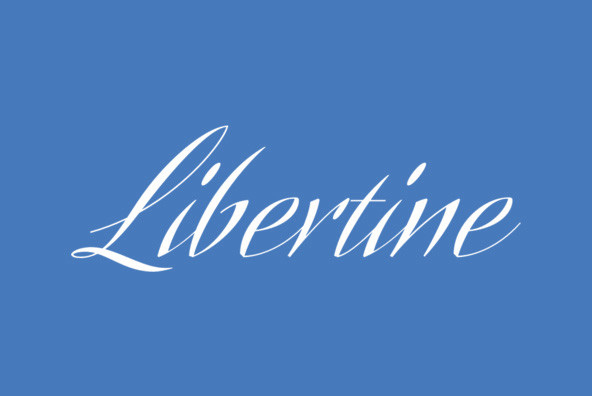
Libertine Font
Libertine Font is perfect for academic publishing houses, scholarly journal layouts, university press materials, intellectual freedom organizations, classical literature publications, and philosophical discourse platforms. This distinguished typeface excels in research institution communications, liberal arts college branding, civil liberties advocacy materials, and any application where intellectual freedom and scholarly excellence create meaningful connections with academic communities.
What makes Libertine Font so exciting is its exceptional ability to embody the principles of intellectual freedom and scholarly independence through elegantly balanced letterforms that honor both classical tradition and progressive thinking. The font features refined proportions, scholarly elegance, and liberated character shapes that reflect the pursuit of knowledge without constraint. Its intellectual presence makes it perfect for institutions that champion free thought and academic excellence.
Libertine Font comes in a scholarly family including Light, Regular, Medium, Bold, and Academic weights. Each style features complete uppercase and lowercase character sets, scholarly symbols, intellectual numerals, and academic punctuation marks. The font family also includes old-style figures, small caps, and classical ligatures that provide designers with comprehensive tools for creating sophisticated academic communications with intellectual authority.
This distinguished typeface represents the pinnacle of academic typography where tradition meets progressive scholarship. Libertine Font Free Download empowers educational institutions and intellectual organizations to enhance their communications with typography that reflects their commitment to free inquiry and scholarly excellence. Whether you're developing academic publications, creating materials for research institutions, or designing communications for intellectual freedom advocates, this font delivers uncompromising scholarly dignity with progressive appeal.
The font's intellectual character makes it particularly effective for universities, research institutes, academic publishers, and civil liberties organizations. Its superior legibility ensures that Libertine Font maintains clarity while projecting maximum scholarly authority and preserving its distinctive academic personality. The font's ability to inspire intellectual confidence and communicate scholarly freedom makes it an invaluable foundation for any project requiring typography that embodies the highest standards of academic tradition and represents the enduring pursuit of knowledge, intellectual liberty, and scholarly excellence.